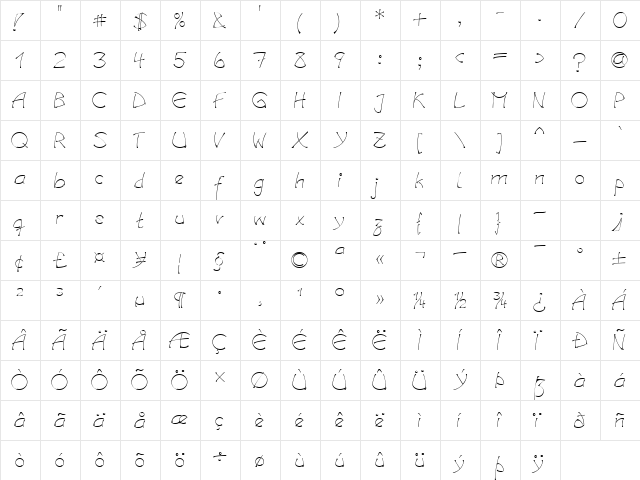
LTSalamander Regular
Design Context for LTSalamander Regular Typeface
LTSalamander Regular is a composed and adaptable typeface that performs quietly and consistently across a wide range of design contexts.